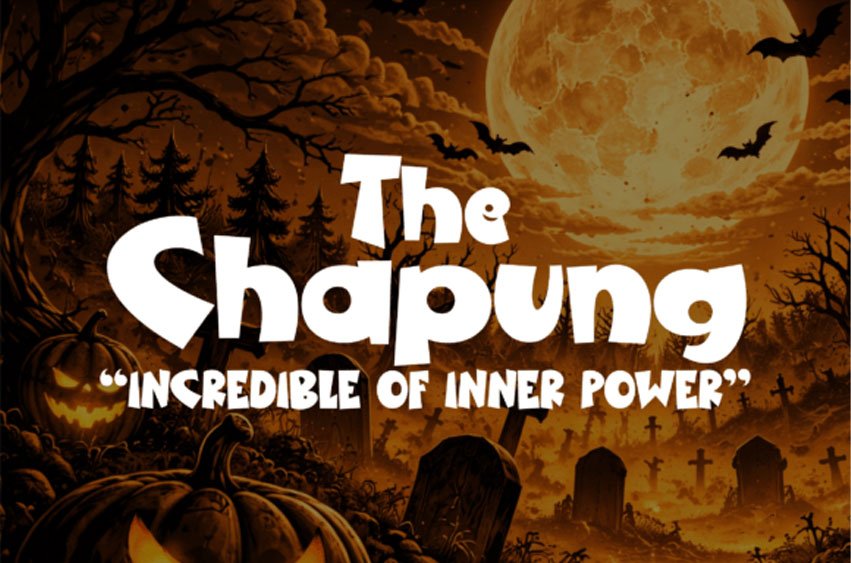
The Chapung Font is a typographic marvel built to inspire and evoke a sense of inner strength, mental toughness, and self-empowerment. This potent design attribute makes it a cherished choice for motivational posters that aim to inspire and uplift. KThe Chapung shines brightly on bold t-shirt designs, transforming simple apparel into powerful messages of tenacity.
It also serves as a prominent choice for thought-provoking social media quotes, leveraging digital word art’s power to kindle positivity. For Canva template designers, this font provides a visually striking element that effortlessly stands out, ensuring your design captures attention instantly.
Moreover, it serves as a perfect specimen for font showcases, highlighting the power of thoughtful typography design in diverse applications. Experience the might of The Chapung, one word at a time.